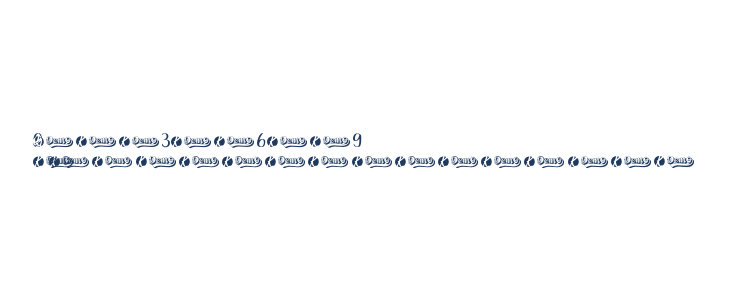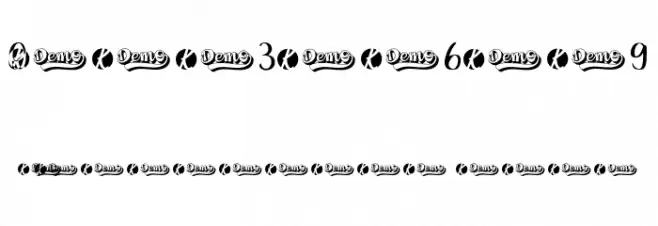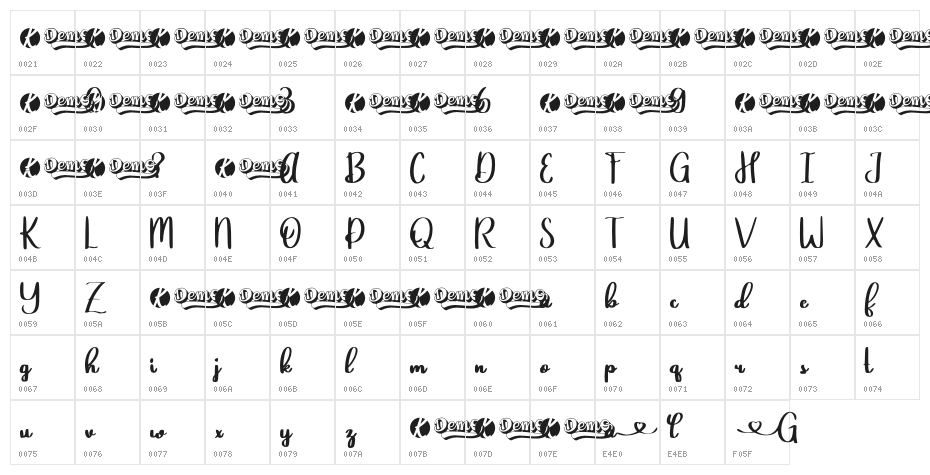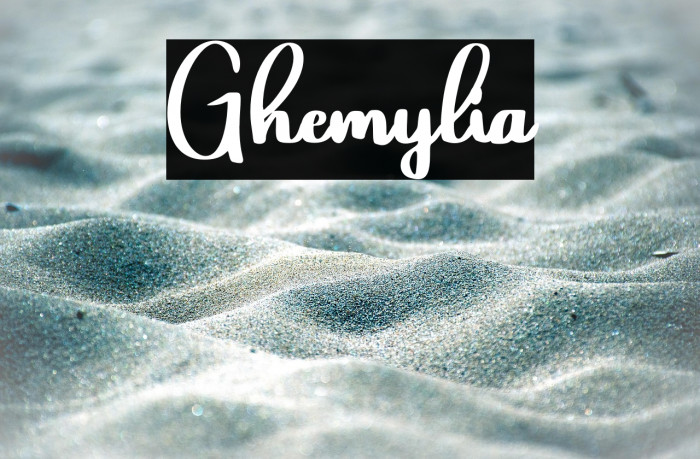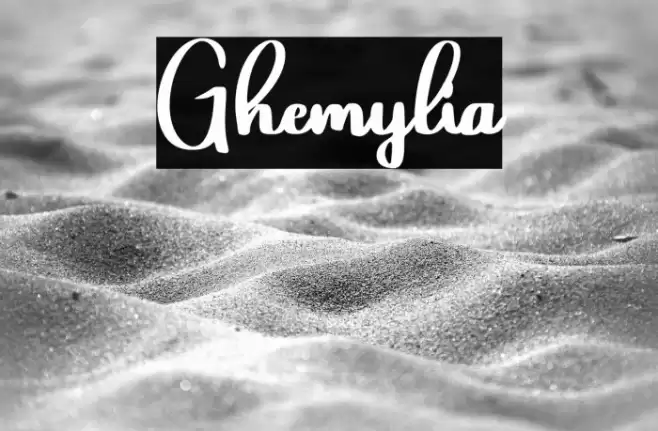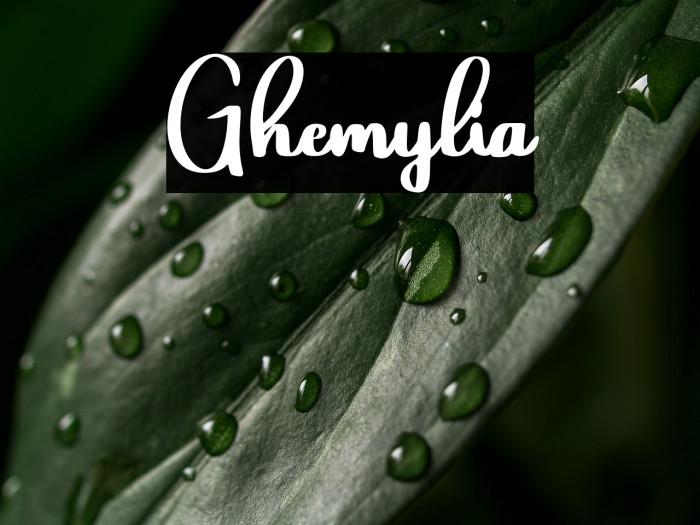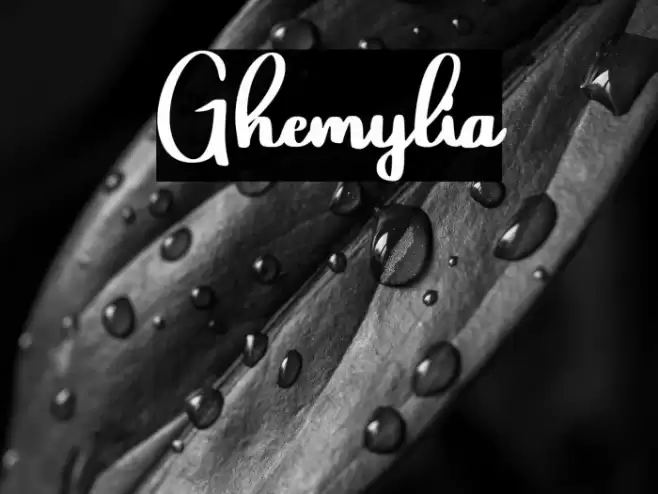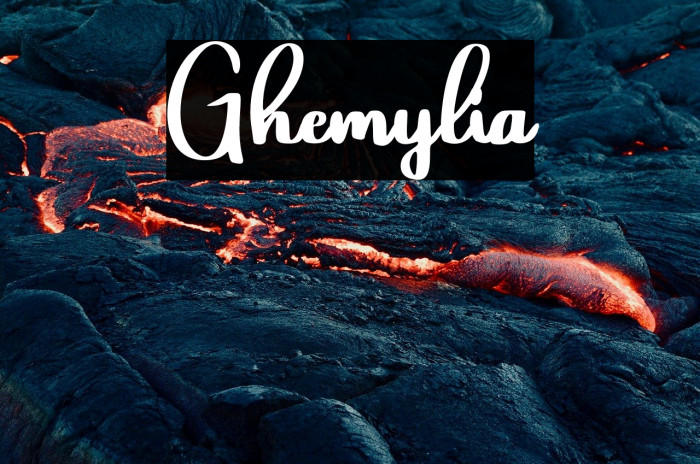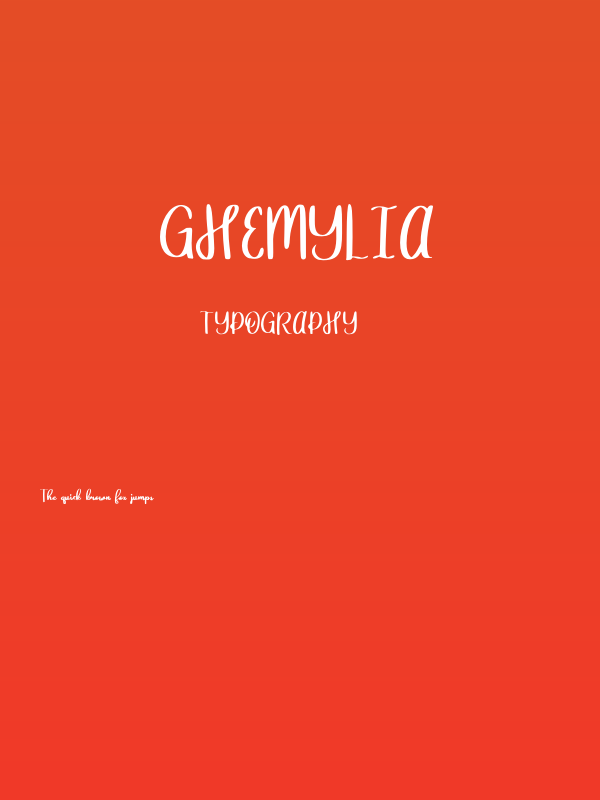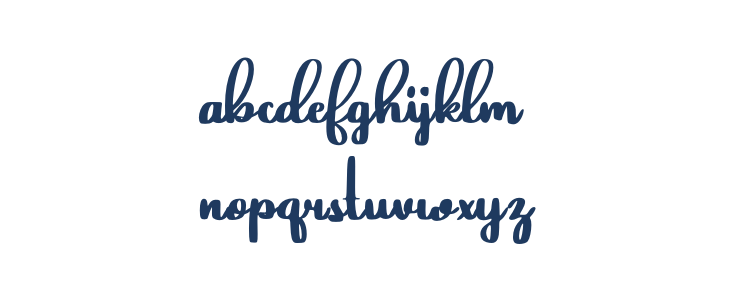
Ghemylia Font
Ghemylia Description
This font features a playful and dynamic script style with a handwritten feel. The uppercase letters are bold and slightly condensed, with a whimsical flair that adds character and uniqueness. The lowercase letters maintain a consistent flow, enhancing readability while retaining a casual elegance. Numbers and special characters are designed to match the overall style, ensuring a cohesive look across all text elements. The font's strokes vary in thickness, providing a medium contrast that adds depth and interest without compromising clarity. Its artistic and lively appearance makes it suitable for creative projects.
| Proposed Projects | Ideal for greeting cards, invitations, branding, and social media graphics. |